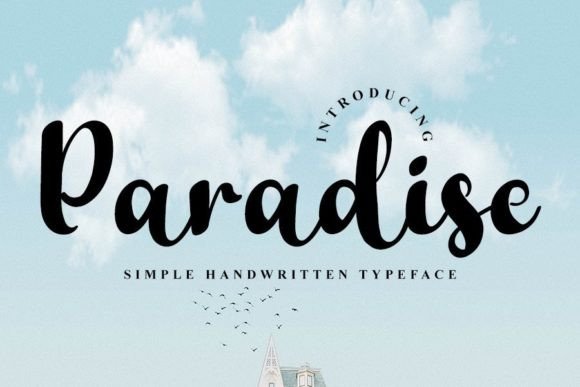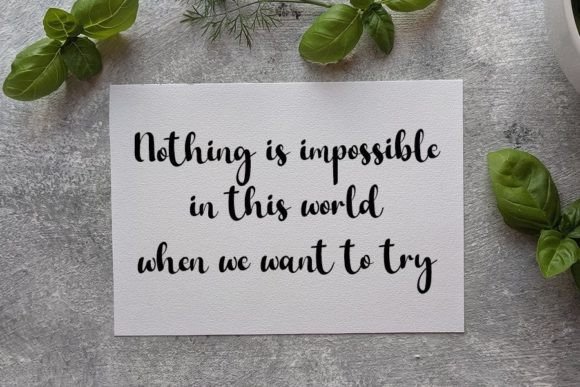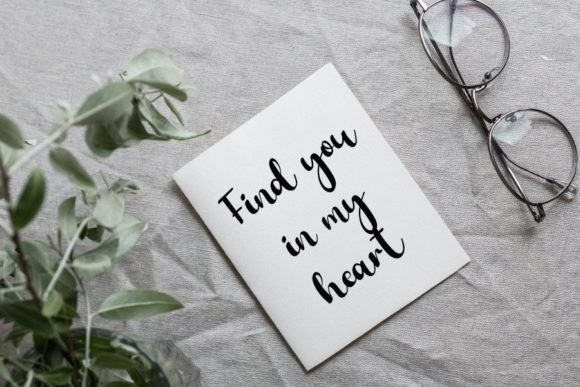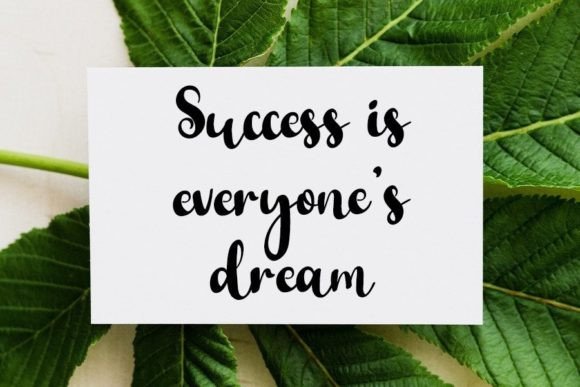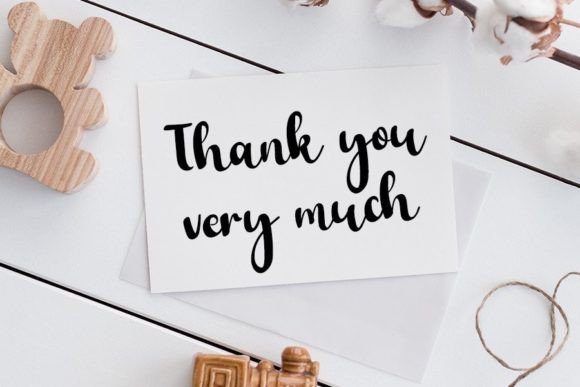
Paradise Font
About Paradise Font
“Paradise” is a beautifully crafted handwritten font that exudes elegance and charm. Its neat and graceful appearance makes it an excellent choice for a wide range of creative projects. With its unique and timeless style, “Paradise” adds a touch of sophistication to your designs, making them stand out with a sense of refinement and creativity.
The font’s carefully designed characters showcase an elegant touch, making it ideal for various applications such as invitations, branding, logos, quotes, social media posts, and more. Its versatility allows you to use it for both formal and informal designs, adapting seamlessly to different contexts and enhancing the overall visual appeal of your projects.
When you incorporate “Paradise” into your designs, you’ll fall in love with its distinct and captivating style. Its timeless elegance and understated beauty make it a favorite choice for designers seeking a font that effortlessly combines sophistication and creativity. Whether you’re working on wedding invitations, luxury branding, or elegant advertising materials, “Paradise” adds a touch of class and refinement, elevating your designs to a new level of excellence.
Embrace the beauty of “Paradise” and let its elegance inspire your creative endeavors. With this font, you can create spectacular designs that leave a lasting impression on your audience. Its distinct and timeless style ensures that your projects will be both visually stunning and unforgettable, making “Paradise” a valuable addition to your design toolkit.